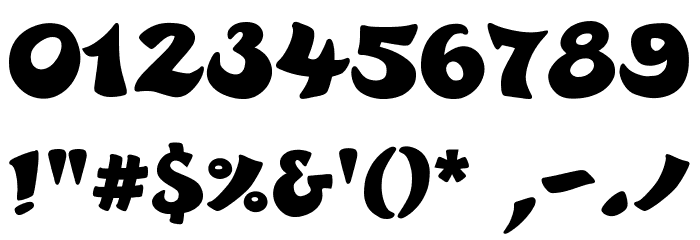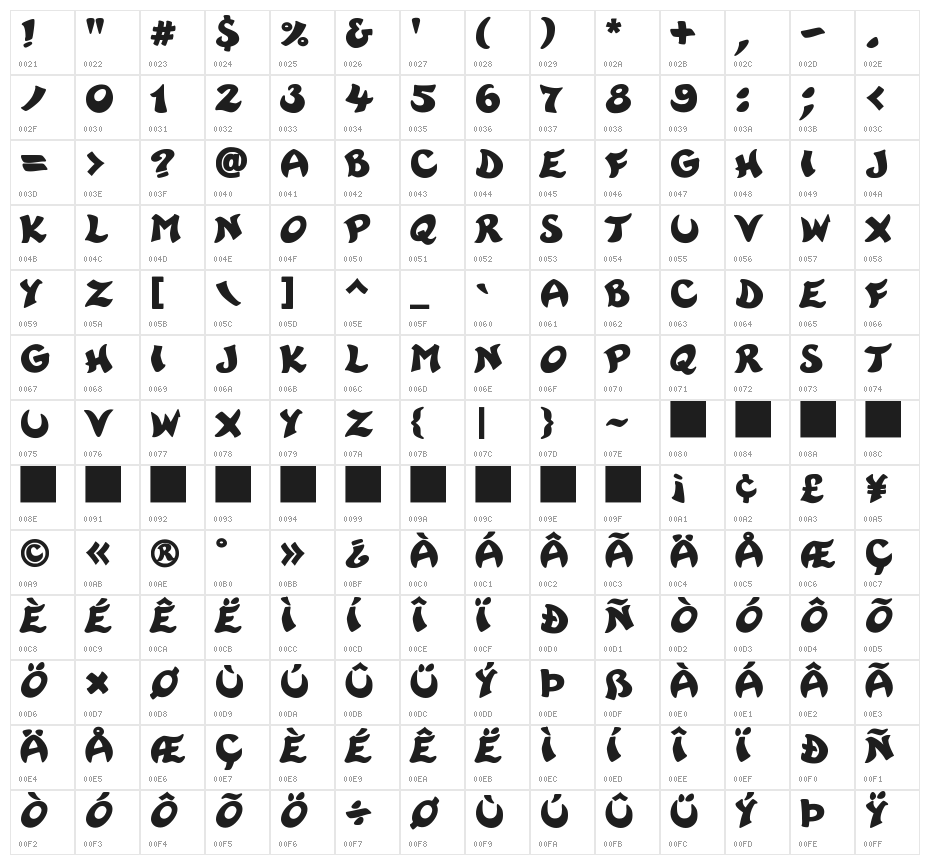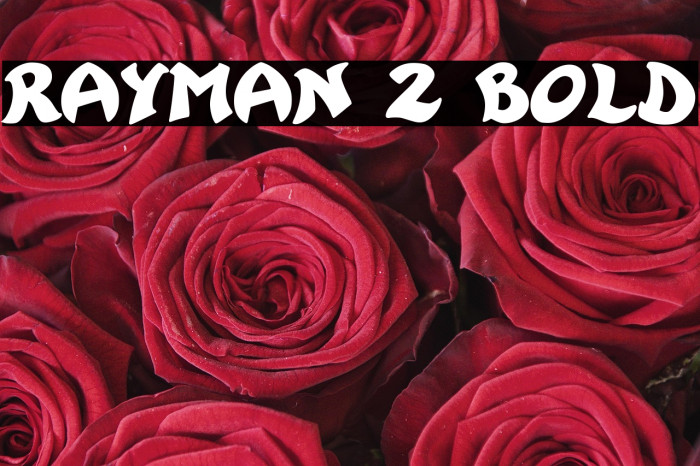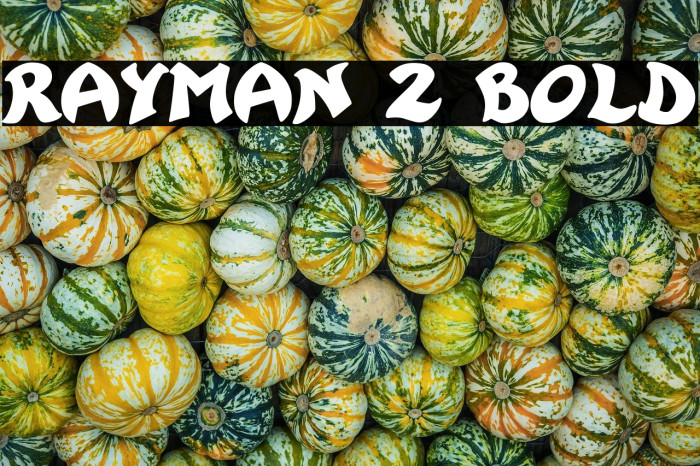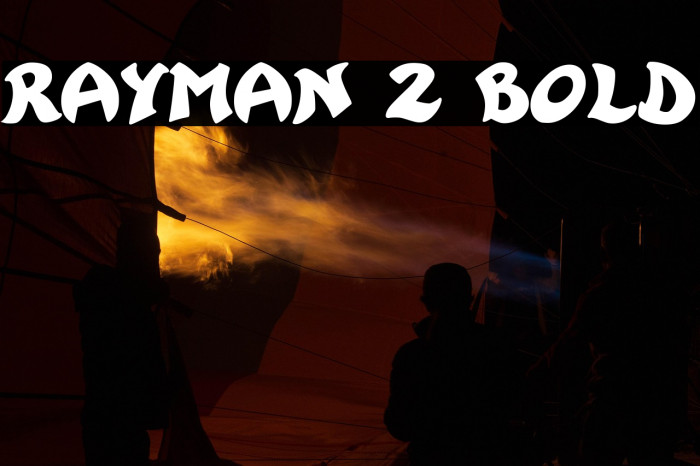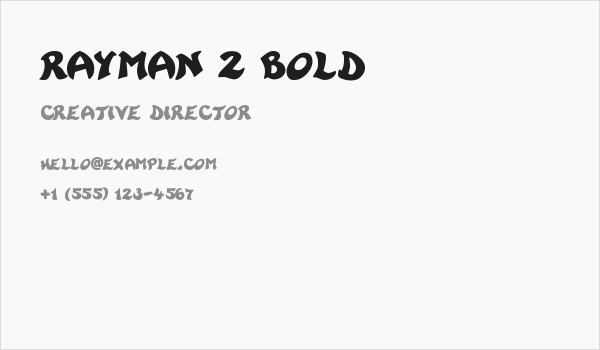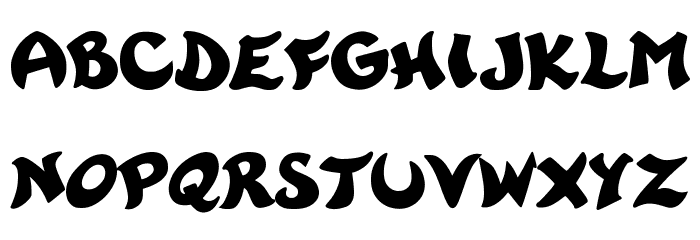
Rayman 2 Bold Font
Rayman 2 Bold Description
This font features a bold and playful style with a strong presence. The characters are rounded and have a whimsical flair, making them stand out with a unique personality. The strokes are thick and consistent, providing a sense of robustness and energy. The overall design is reminiscent of cartoon or comic styles, with exaggerated curves and a lively appearance. The font maintains a uniform weight throughout, ensuring readability while adding a touch of fun to any text. Its distinctive character shapes make it suitable for creative and informal applications.
| Overall Style | Playful, Cartoonish |
| Proposed Projects | Ideal for children's books, comic strips, playful branding, and creative posters. |